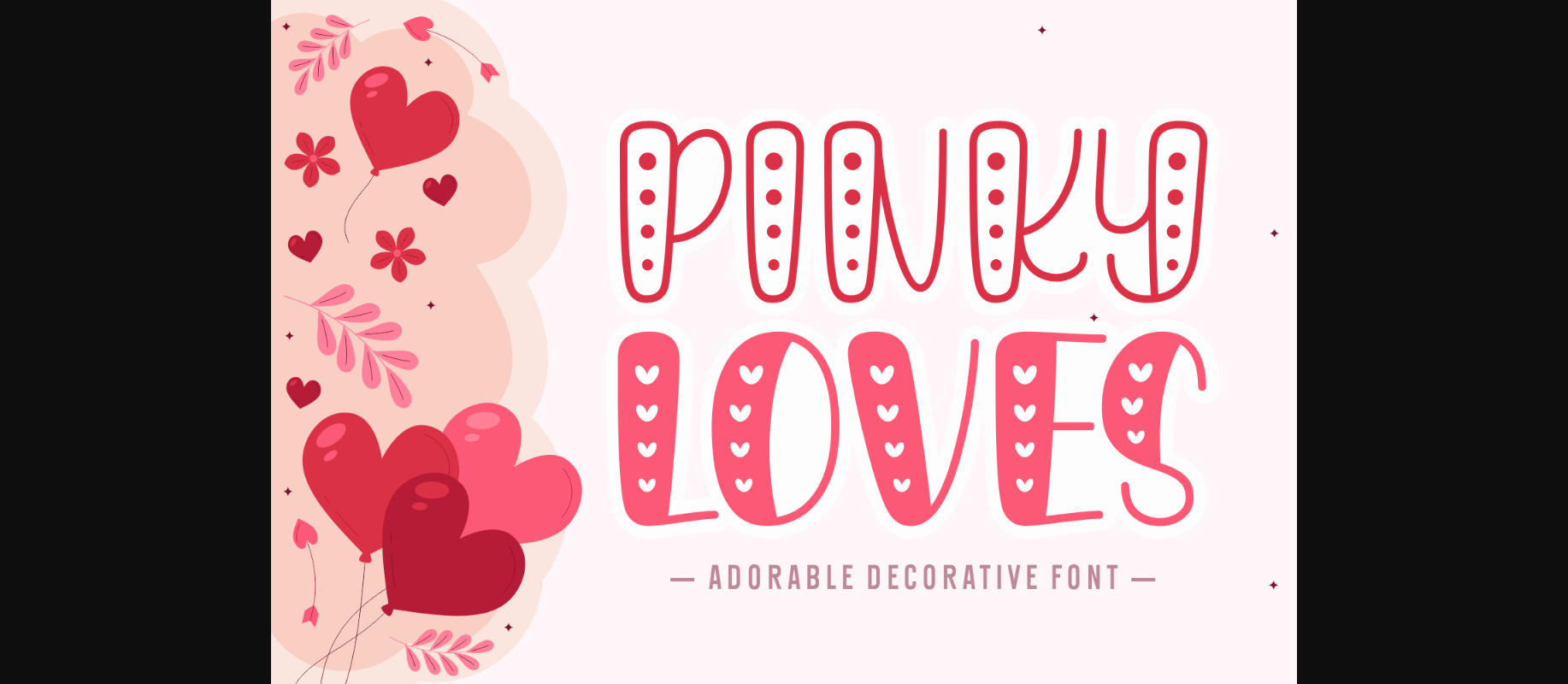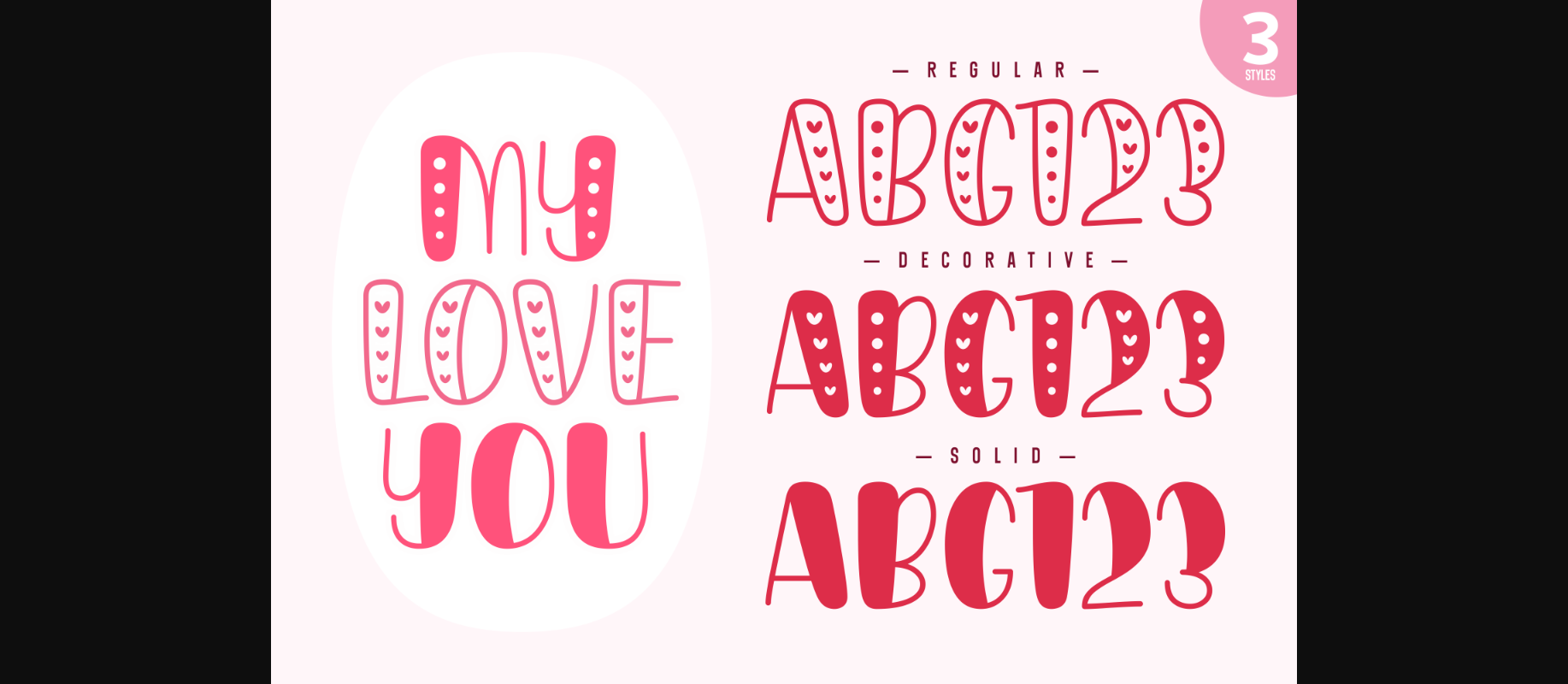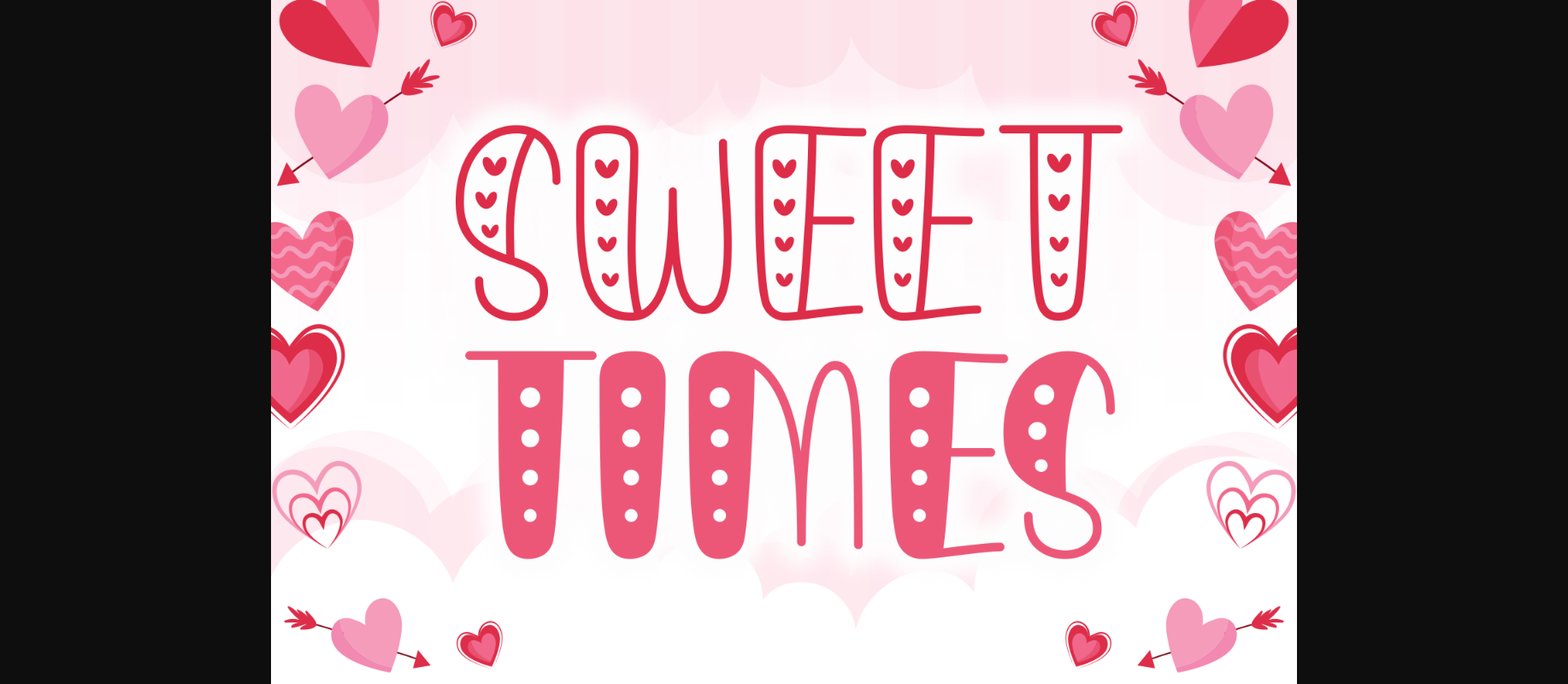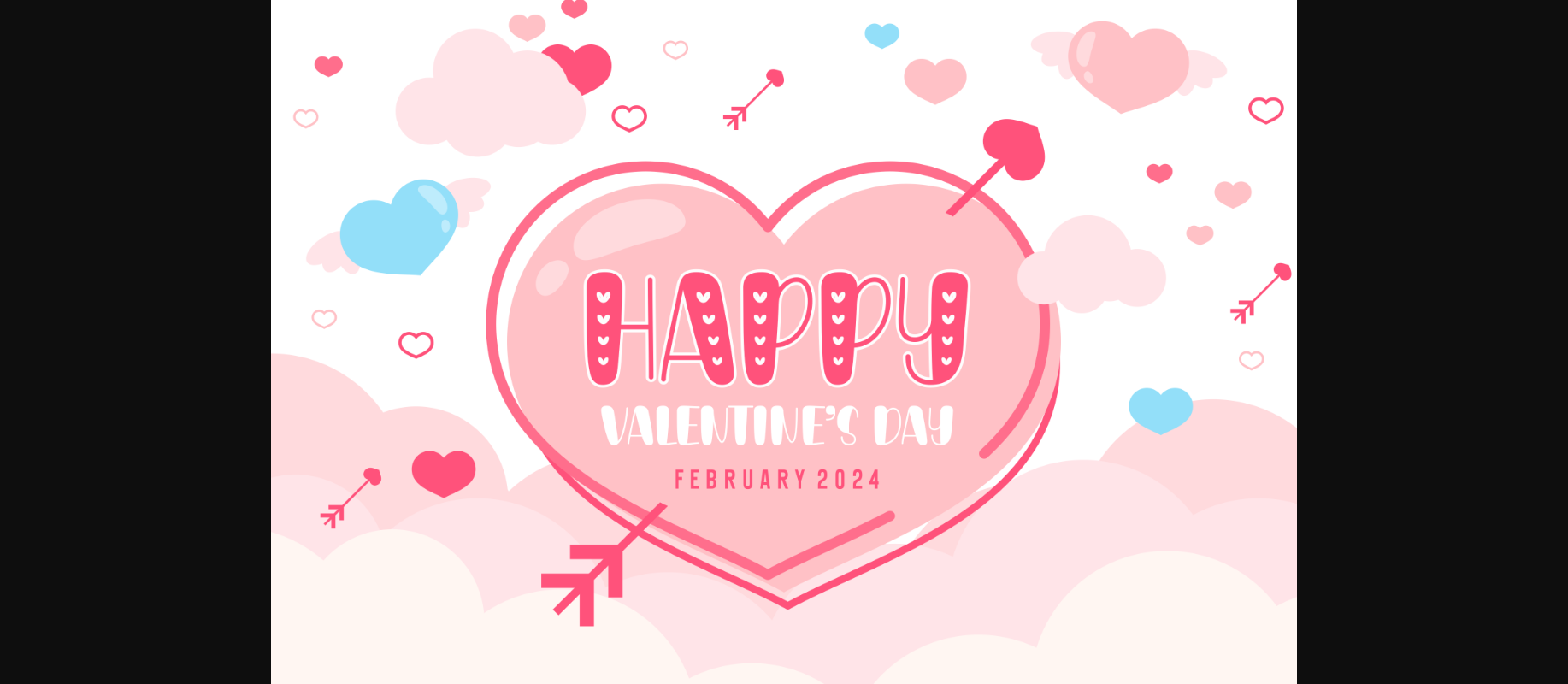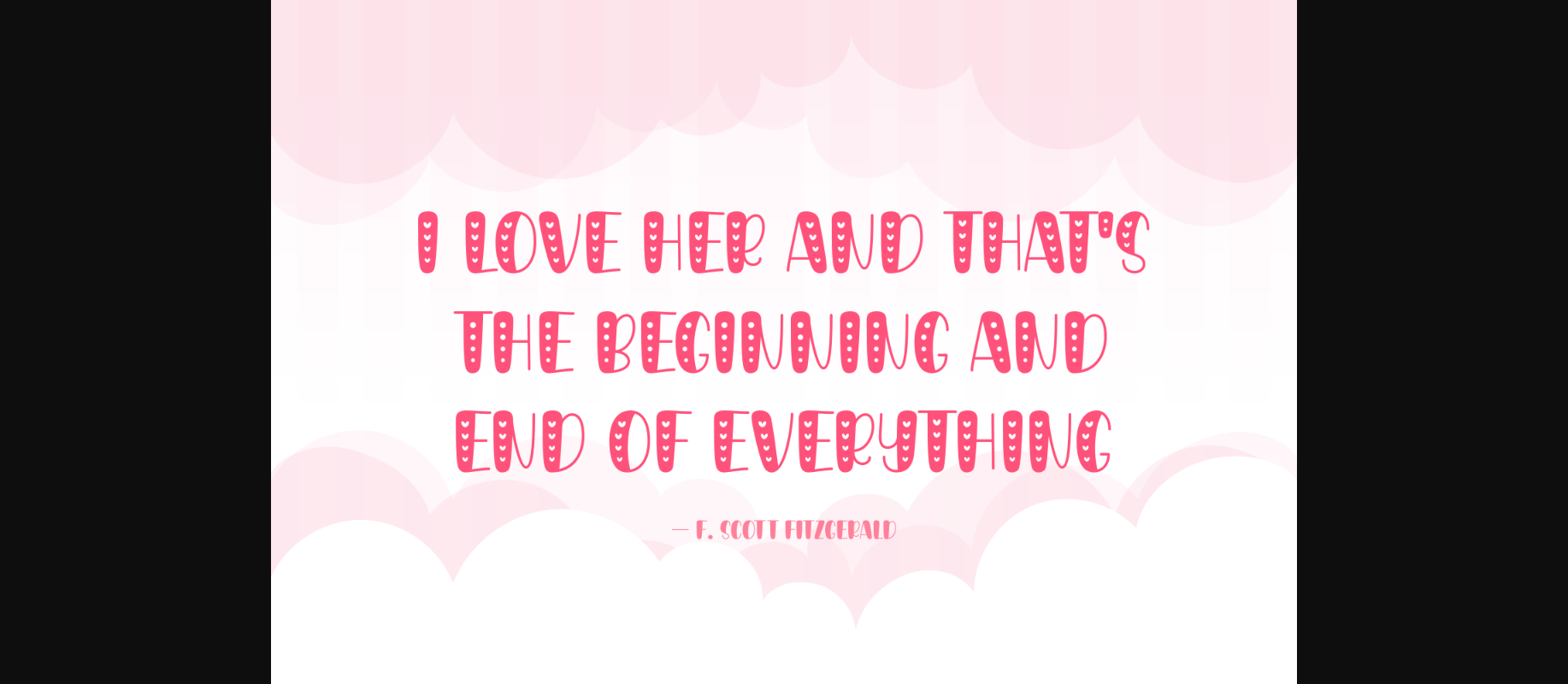
Pinky Loves Font
About Pinky Loves Font
Pinky Loves is a sweet handwritten font that adds a touch of charm to your projects. What makes it extra special? Little dots delicately enhance each letter, giving your text a playful and unique vibe. Perfect for adding a whimsical and personal feel to your designs, Pinky Loves is sure to make your words stand out with its delightful handwritten style and adorable dot details.